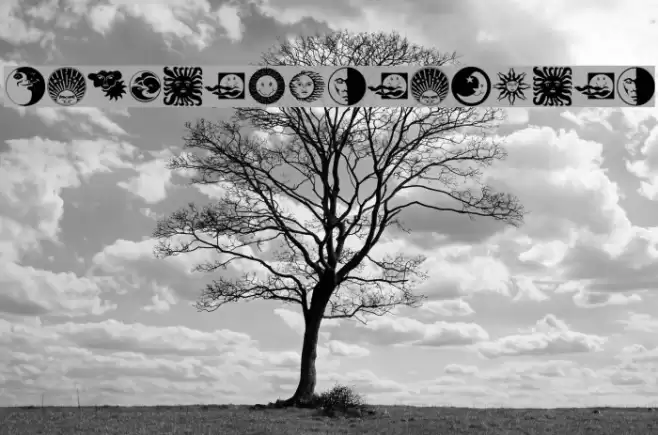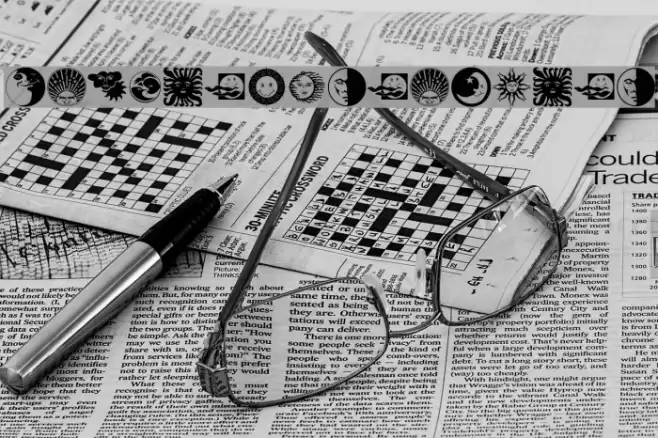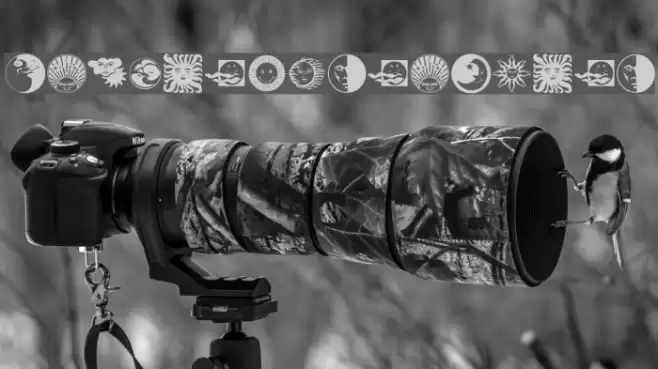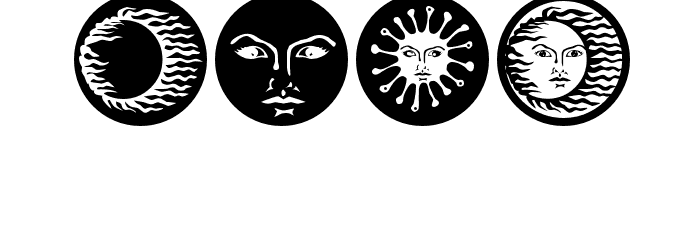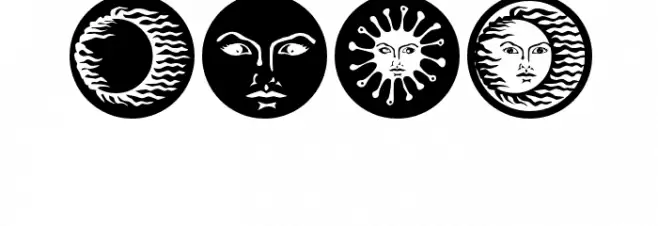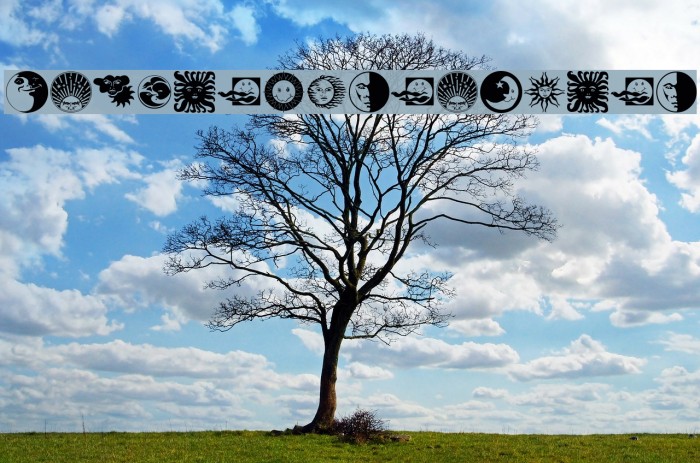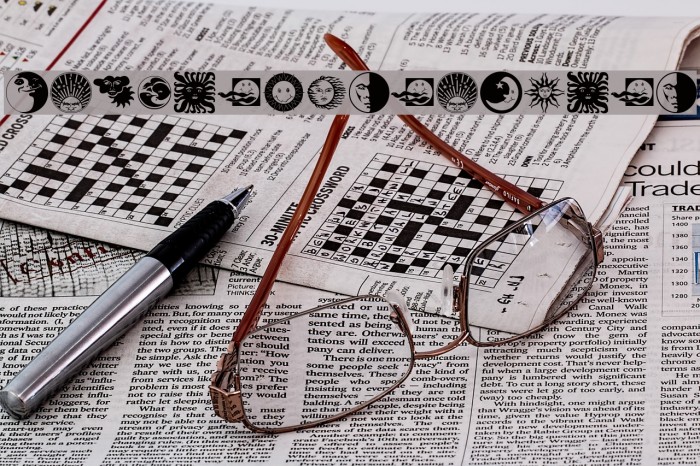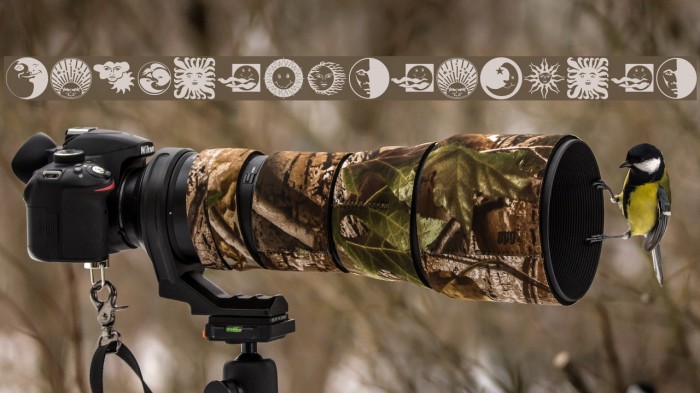
PrivateAstroBats Font
PrivateAstroBats Description
A decorative collection of celestial-themed glyphs featuring stylized suns, moons, stars, and faces, rendered in bold black and white with intricate linework and vintage-inspired motifs.
Ornate celestial icons with a vintage, mystical style from Uncategorized fonts.
- Proposed Projects: Astrology branding, tarot cards, album covers, posters, mystical or spiritual product packaging.
- Overall Style: Vintage, Mystical, Decorative
- Use Case: Logos, Posters, Decorative elements, Branding